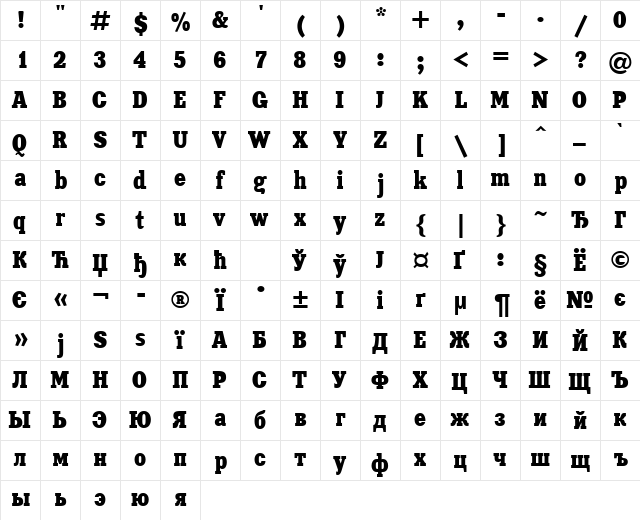
XeniaCondensedCTT Regular Font Preview
XeniaCondensedCTT Regular
Design Context for XeniaCondensedCTT Typeface
XeniaCondensedCTT is a composed and adaptable typeface that performs quietly and consistently across a wide range of design contexts. The condensed width makes it efficient for tight spaces without sacrificing legibility.